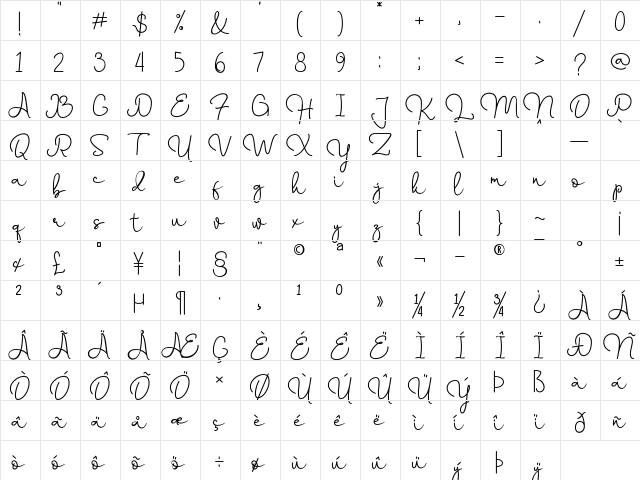
Yussan Regular
| Designer | Aldedesign 2019 |
Design Context for Yussan Typeface
Yussan takes a measured approach to typography — its balanced proportions and neutral character make it a reliable workhorse for both digital and print work.
Pro Tip: Use Yussan in both headline and body roles to test its range before committing to a single application.